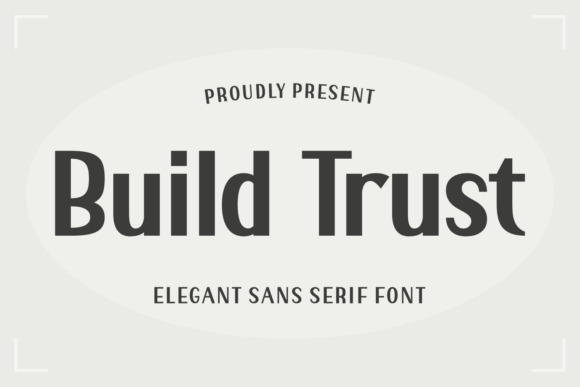
Designing with Confidence
There’s nothing quite like the rush of excitement when a new design project comes together – the colors align, the typography falls into place, and the message starts to take shape. But what happens when you need to cut through the noise and make your mark?
That’s where Build Trust Font comes in – a bold and elegant sans serif designed to disrupt the status quo with its uncompromising structure. Engineered for bold communication, Build Trust strikes a balance between industrial simplicity and a sharp, modern bite. Whether you’re working on a high-concept branding project or a new style aesthetic, this font is the go-to tool for designers who want their message to hit hard and look effortless.
With Build Trust Font, designers can create work that truly stands out – work that builds trust with their audience and leaves a lasting impression.
Build Trust Font Key Features
- Font Family: Build Trust Font is a sans-serif font family designed to evoke trust and reliability. It comes in 12 weights, ranging from Light to Black.
- Character Set: Supports a wide range of languages, including Latin, Greek, Cyrillic, and many others, making it suitable for global applications.
- Unique Characteristics: Build Trust Font features a unique blend of modern and traditional design elements, making it stand out from other sans-serif fonts. Its subtle rounded edges and open apertures create a friendly and approachable feel.
Build Trust Font Review
After diving into the Build Trust Font, I found it to be a solid addition to any designer’s toolkit. Here are some of its strengths and weaknesses.
- The font’s unique blend of modern and classic elements creates a professional and trustworthy aesthetic.
- Its clean lines and minimal ornamentation make it an excellent choice for body text and long-form content.
- The font’s versatility allows it to be used in a wide range of applications, from digital interfaces to print materials.
- The font may feel a bit too safe and conservative for designers looking to make a bold statement.
- The lack of bold and italic weights may limit its use in certain situations.
- The font may not be suitable for projects requiring a more playful or whimsical tone.
Overall, Build Trust Font is a reliable choice for designers seeking a clean, professional look. While it may not be the most exciting or innovative font, its consistency and versatility make it a valuable addition to any design library.
Tips for Getting the Most Out of Build Trust Font
Use Build Trust Font in combination with other design elements to create a cohesive and trustworthy visual identity.
Experiment with different font sizes, colors, and styles to find the perfect balance for your design.
Use Build Trust Font in headings and titles to draw attention and create a sense of hierarchy in your design.
Build Trust Font is ideal for:
Corporate branding and identity
Business proposals and presentations
Marketing materials and
Alternatives to Build Trust Font
Open Sans is a clean and modern sans-serif font. It’s suitable for body text and can be used in combination with other fonts for headings. Use it when you want a clean and minimalist design. Open Sans is similar to Build Trust Font in its simplicity, but it’s more versatile and can be used in a wider range of applications.
Montserrat is a geometric sans-serif font that’s designed for digital use. It’s highly legible and can be used for body text, headings, and even logos. Use it when you want a modern and urban feel. Montserrat is more condensed than Build Trust Font, making it suitable for smaller screens and devices.